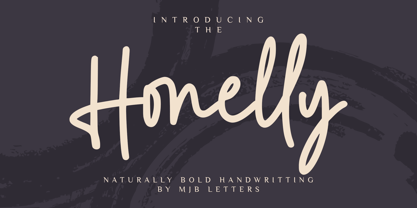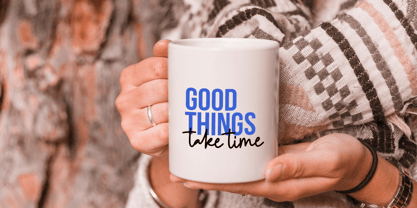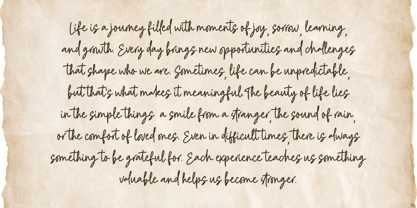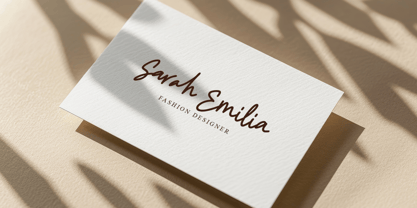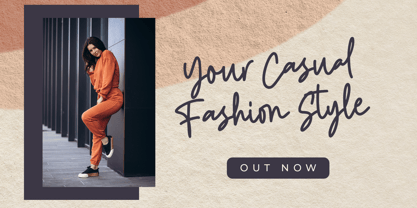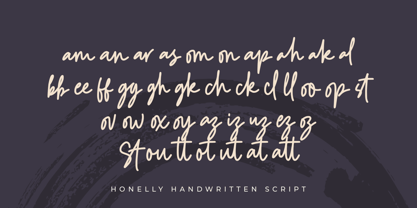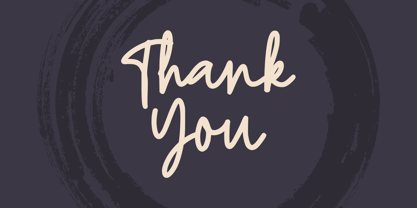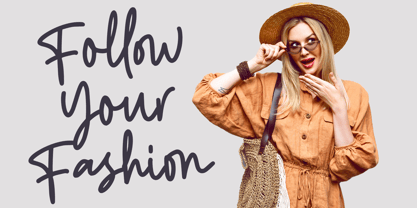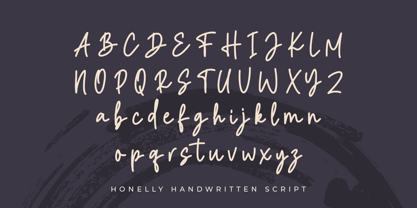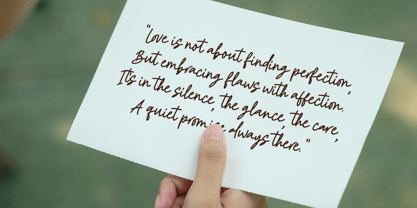
Honelly
by MJB Letters
The Honelly Font Family was designed by Muhammad Mujibulloh and published by MJB Letters. Honelly contains 1 styles. More about this family
Introducing Honelly, a casual yet confident signature font that blends natural flow with bold strokes. Designed to mimic the effortless charm of authentic handwriting, Honelly brings a fresh and personal touch to your creative projects.
With its bold yet smooth appearance, this font is ideal for branding, logos, packaging, wedding invitations, photography signatures, quotes, and modern editorial layouts. Each letter is crafted to stand out while remaining harmonious in composition — striking a perfect balance between casual elegance and expressive confidence.
Honelly also features a complete set of uppercase and lowercase letters, numerals, punctuation, ligatures, and multilingual support, making it not only visually appealing but also highly functional.
Whether you’re designing for a bold personal brand or looking to add a stylish, handwritten vibe to your visual content, Honelly is the go-to font to make your message naturally unforgettable.
Designers: Muhammad Mujibulloh
Foundry: MJB Letters